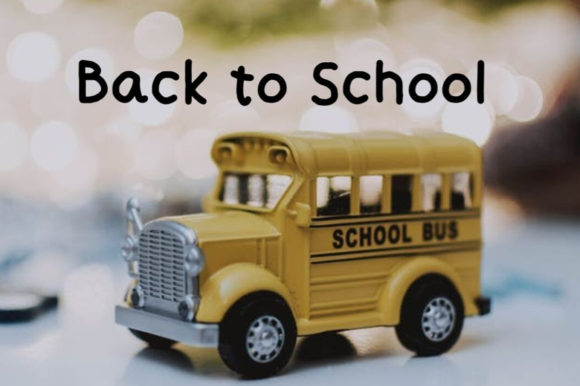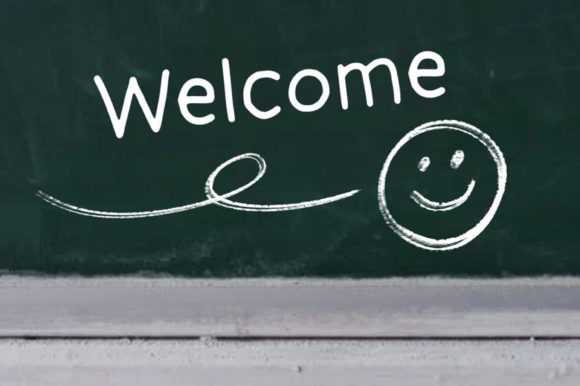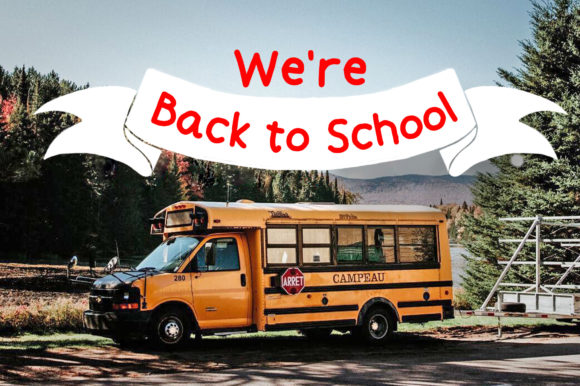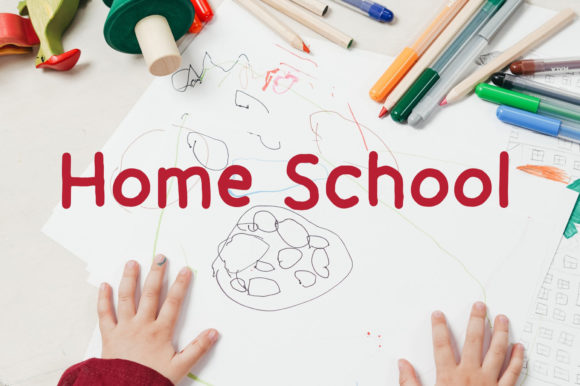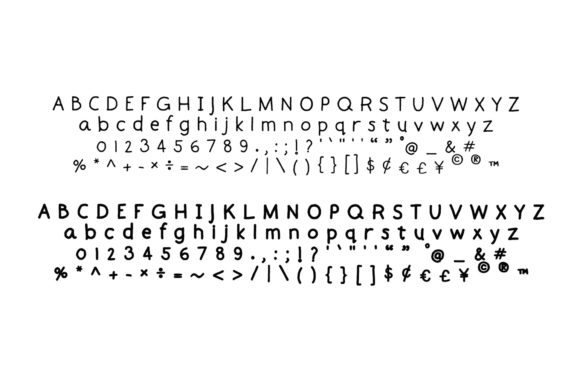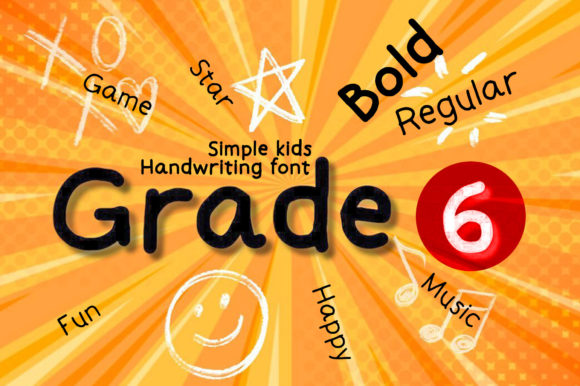
Introducing Grade6 Font: The Perfect Handwritten Font for Chalkboard Quotes and Teaching Materials
Are you a designer, teacher, or crafter looking for a font that can add a personal touch to your chalkboard quotes, teaching materials, and craft projects? Look no further than Grade6 Font! This adorable and simple lettered handwritten font is perfect for anyone who wants to create authentic and realistic designs that resemble handwritten chalkboard text.
What Makes Grade6 Font So Special?
Grade6 Font is a unique and charming font that is designed to mimic the look of handwritten chalkboard text. Its authentic look and feel make it perfect for a variety of design projects, including:
• Chalkboard quotes and posters
• Teaching materials and worksheets
• Craft projects and DIY tutorials
• Signs and labels
With Grade6 Font, you can add a personal and realistic touch to your designs, making them stand out from the crowd. Whether you’re a teacher looking to create engaging lesson plans or a designer looking to add a unique touch to your projects, Grade6 Font is the perfect choice.
Key Features of Grade6 Font
Here are some of the key features that make Grade6 Font so special:
• Cute and Simple Design: Grade6 Font has a cute and simple design that is easy to read and looks great on any device.
• Handwritten Look: The font has a genuine handwritten look that will add a personal touch to your designs.
• Chalkboard Theme: The font is designed to resemble chalkboard text, making it perfect for chalkboard quotes and teaching materials.
Benefits of Using Grade6 Font
Here are some of the benefits of using Grade6 Font in your designs:
• Save Time: With Grade6 Font, you can create professional-looking designs in no time.
• Add a Personal Touch: The font’s handwritten look will add a personal touch to your designs, making them more engaging and relatable.
• Increase Engagement: Grade6 Font is easy to read and will increase engagement with your audience.
• Stand Out from the Crowd: The font’s unique design will help your designs stand out from the crowd.
In conclusion, Grade6 Font is a unique and charming font that is perfect for designers, teachers, and crafters who want to add a personal touch to their chalkboard quotes, teaching materials, and craft projects. With its authentic look and feel, Grade6 Font is sure to become a favorite in your font library. So why wait? Download Grade6 Font today and start creating amazing designs!